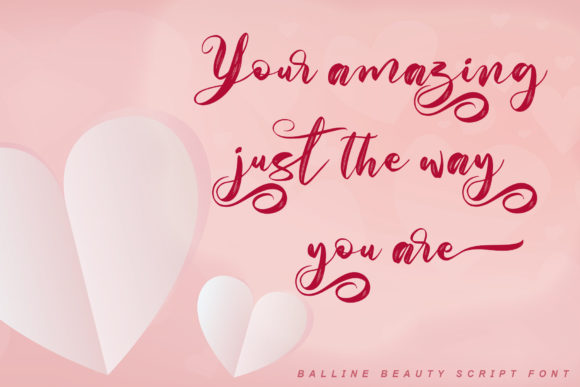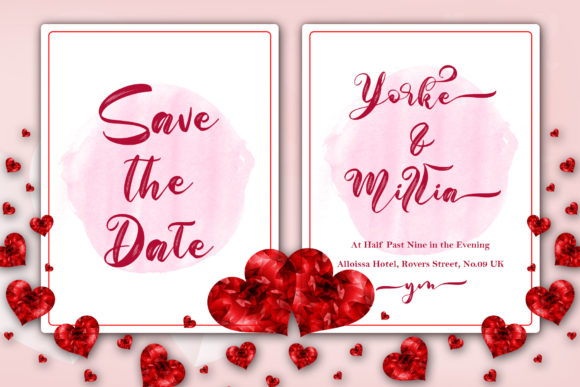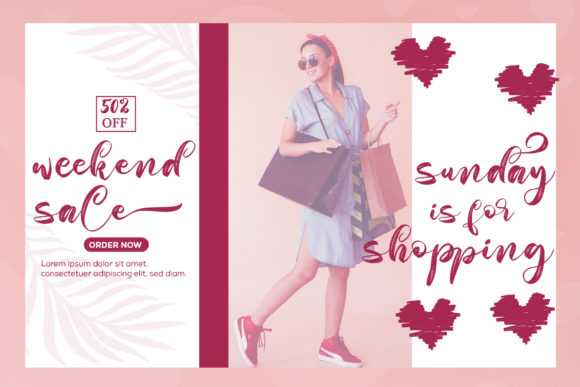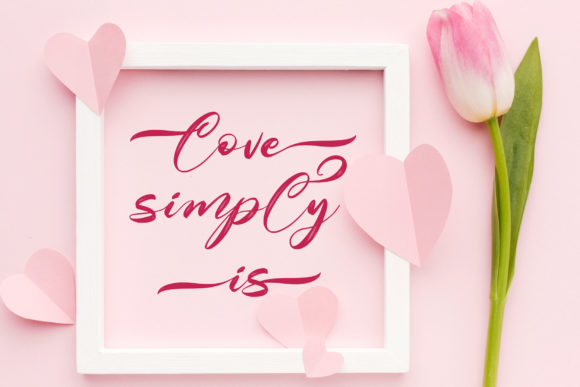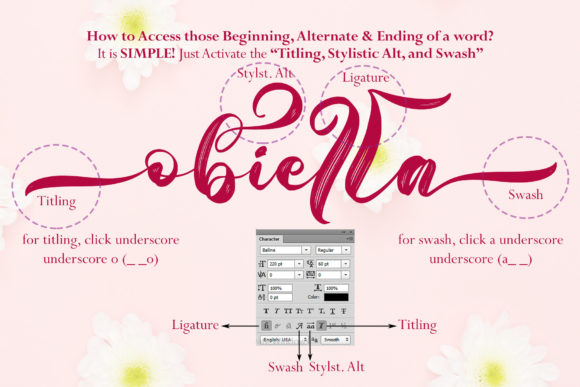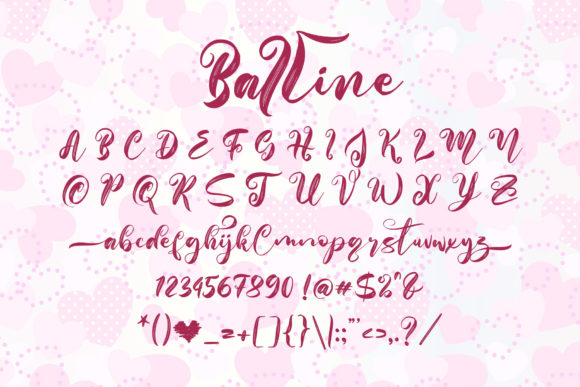
Introducing Balline Font: Elevate Your Designs with Elegance and Sophistication
Are you a designer or crafter looking for a font that exudes class, elegance, and modernity? Look no further than Balline Font, a stunning script font that is sure to take your designs to the next level. With its refined and beautiful appearance, Balline Font is perfect for a wide range of applications, from logos and branding to invitations, stationery, wedding designs, social media posts, and more.
The Characteristics of Balline Font
Balline Font boasts a classy, elegant, and modern look that is sure to impress. Its script style is perfect for adding a touch of sophistication to any design, while its clean lines and refined appearance ensure that it remains highly legible. Whether you’re looking to create a luxurious brand identity or a beautiful wedding invitation, Balline Font has the versatility to deliver.
What Makes Balline Font So Special?
One of the standout features of Balline Font is its PUA (Private Use Area) encoding. This means that you can access all of the glyphs and swashes with ease, giving you complete creative control over your designs. With a wide range of glyphs and swashes at your disposal, you can experiment with different combinations to create truly unique and eye-catching designs.
Use Cases for Balline Font
So, what can you use Balline Font for? The possibilities are endless! Here are just a few ideas to get you started:
- Logos and Branding: Create a luxurious brand identity with Balline Font. Its elegant appearance makes it perfect for high-end brands, while its legibility ensures that your logo will be easily recognizable.
- Invitations and Stationery: Add a touch of sophistication to your invitations and stationery with Balline Font. Its refined appearance makes it perfect for formal events, such as weddings and galas.
- Wedding Designs: Create beautiful wedding designs with Balline Font, from invitations and save-the-dates to wedding programs and place cards.
- Social Media Posts: Elevate your social media posts with Balline Font. Its modern appearance makes it perfect for creating eye-catching graphics and quotes.
Why Designers and Crafters Love Balline Font
Designers and crafters love Balline Font for its versatility, elegance, and ease of use. Here are just a few reasons why:
- Ease of Use: Balline Font is incredibly easy to use, even for those with limited design experience. Its PUA encoding makes it simple to access all of the glyphs and swashes, while its clean lines and refined appearance ensure that it remains highly legible.
- Versatility: Balline Font is incredibly versatile, making it perfect for a wide range of applications. Whether you’re creating a logo, invitation, or social media post, Balline Font has the flexibility to deliver.
- Elegance: Balline Font exudes elegance and sophistication, making it perfect for high-end brands and formal events.
In conclusion, Balline Font is a beautiful and refined script font that is sure to elevate your designs with elegance and sophistication. Its classy, elegant, and modern look makes it perfect for a wide range of applications, from logos and branding to invitations, stationery, wedding designs, social media posts, and more. With its PUA encoding and wide range of glyphs and swashes, Balline Font gives you complete creative control over your designs. So why wait? Download Balline Font today and start creating stunning designs that will leave a lasting impression!